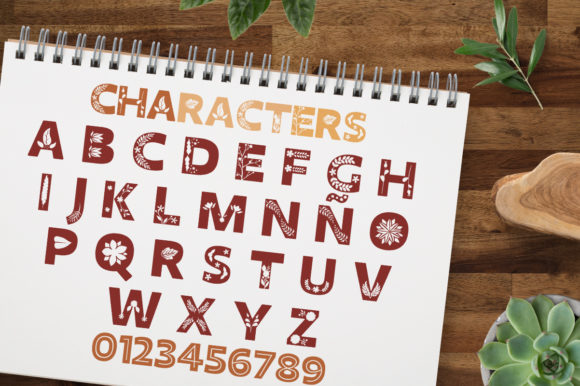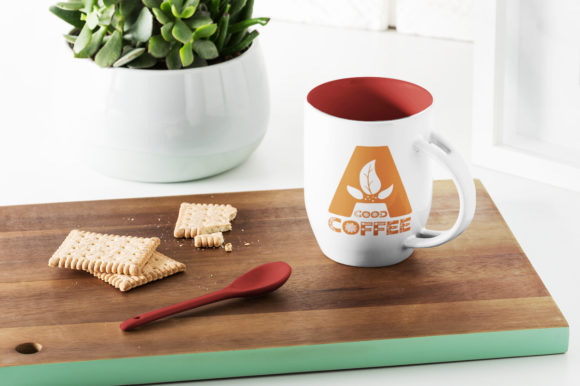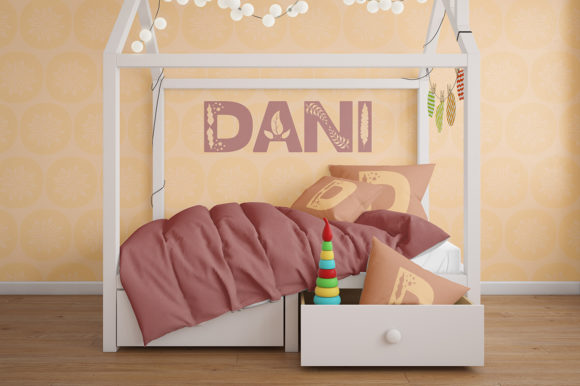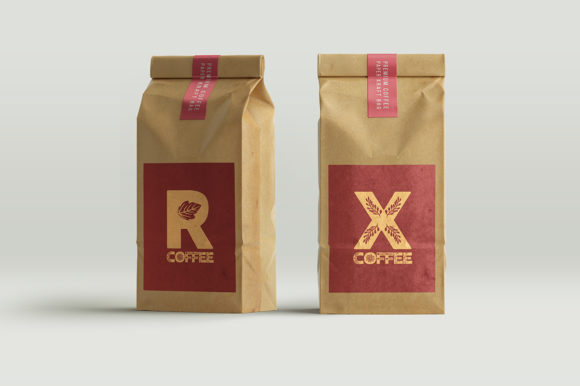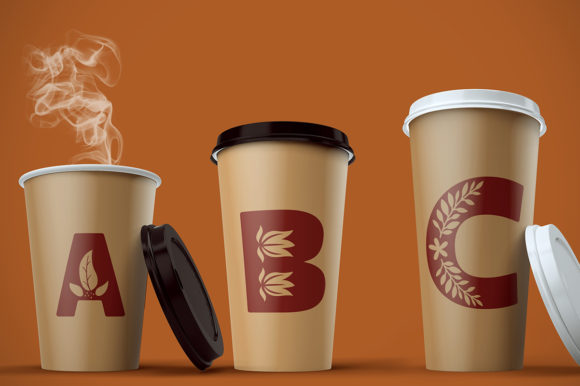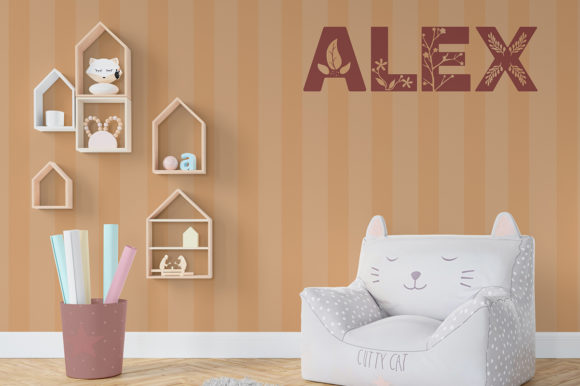
Introduction to Rose Road Font
Have you ever stared at a blank canvas, trying to bring a design idea to life, only to feel stuck and uninspired? That’s where the perfect font can make all the difference. For designers, finding the right font can be the spark that sets their creative project ablaze. And that’s exactly what the Rose Road Font does – it’s a game-changer.
With its incredibly charming style and friendly feel, the Rose Road Font is the ultimate design resource for anyone looking to create original and outstanding designs. Whether you’re working on a free download or a high-end project, this font is sure to impress. Plus, with a transparent background, you can easily integrate it into any design without worrying about distracting elements.
As a high-quality font, the Rose Road Font is a valuable addition to any designer’s toolkit. Its elegant and charming style makes it perfect for a wide range of creative projects, from invitations to logos and more. So why settle for a generic font when you can elevate your designs with the Rose Road Font?
Key Features of Rose Road Font
- Rose Road Font is a high-quality, free download design resource ideal for creative projects.
- This elegant font features a transparent background, allowing for seamless integration into various design elements.
- This unique font features a beautiful, hand-drawn design that adds a touch of sophistication to any creative project.
- Rose Road Font is a versatile design resource that can be used for a variety of applications, including logos, headings, and body text.
Honest Review: Rose Road Font
As a designer, I’m always on the lookout for high-quality design resources to elevate my creative projects. Recently, I had the opportunity to try out the Rose Road Font, and I’m excited to share my honest review.
- High-quality design: The Rose Road Font is incredibly detailed and visually appealing, making it perfect for a variety of creative projects.
- Transparent background: This feature allows for seamless integration with transparent backgrounds, giving designers more flexibility when working on designs.
- Limited character set: The Rose Road Font has a relatively limited character set, which may not be ideal for projects that require a wide range of characters.
- Not suitable for all typography styles: While the font is beautiful, it may not be the best choice for projects that require a more formal or traditional typography style.
Overall, I’m impressed with the Rose Road Font’s high quality and versatility. While it has some limitations, it’s an excellent option for designers working on creative projects that require a unique and visually appealing font. With its transparent background and free download, it’s definitely a valuable addition to any design resource library.
When using the Rose Road Font, remember to use it in conjunction with other design elements to create a cohesive look. This font is perfect for wedding invitations, branding materials, and other creative projects that require a unique and elegant touch. By following these tips and using the Rose Road Font in your designs, you can create stunning and professional-looking projects.
Yes, the Rose Road Font is a fully editable font, allowing you to customize it to suit your design requirements. You can use font editing software to modify the font’s characteristics, such as line width, spacing, and character styles.
Does the Rose Road Font include a transparent background?
Yes, the Rose Road Font includes a transparent background, making it ideal for use in designs where you want to overlay text on images or other background elements. This feature allows for greater flexibility and creativity in your design project.